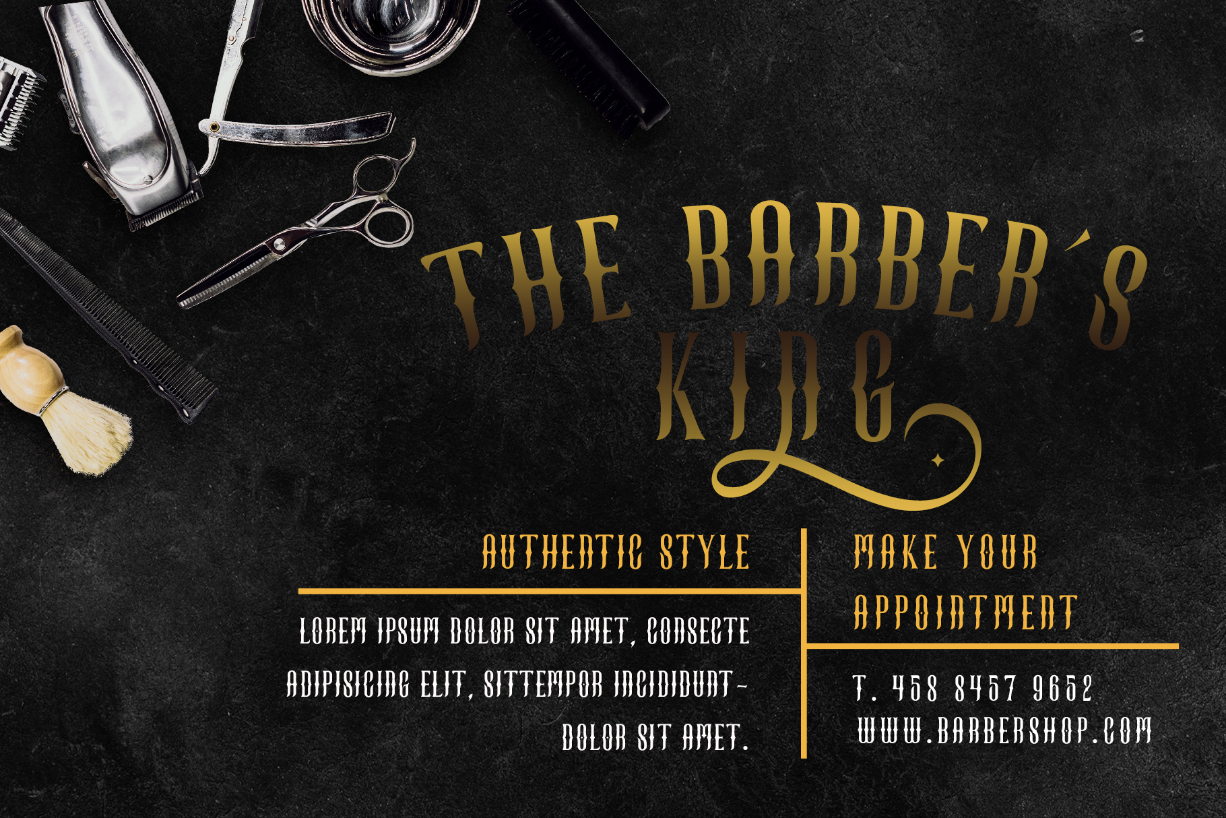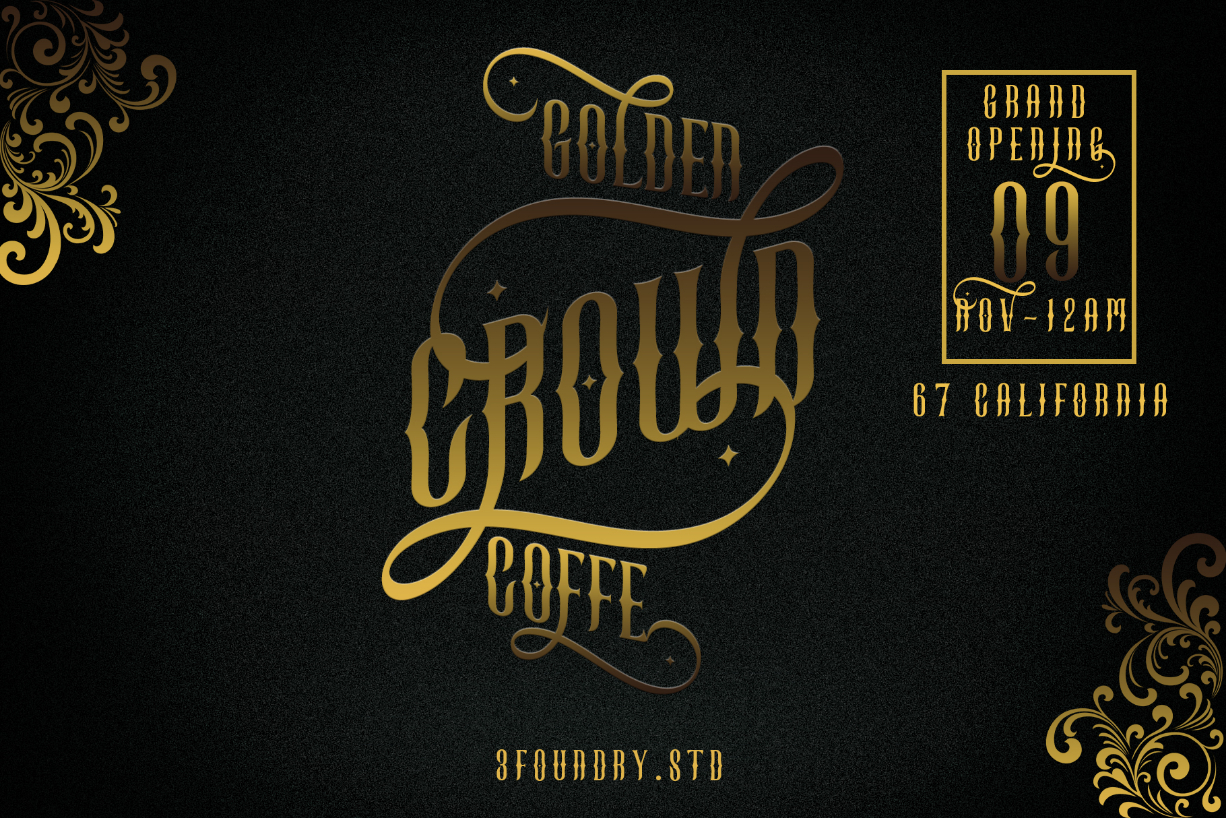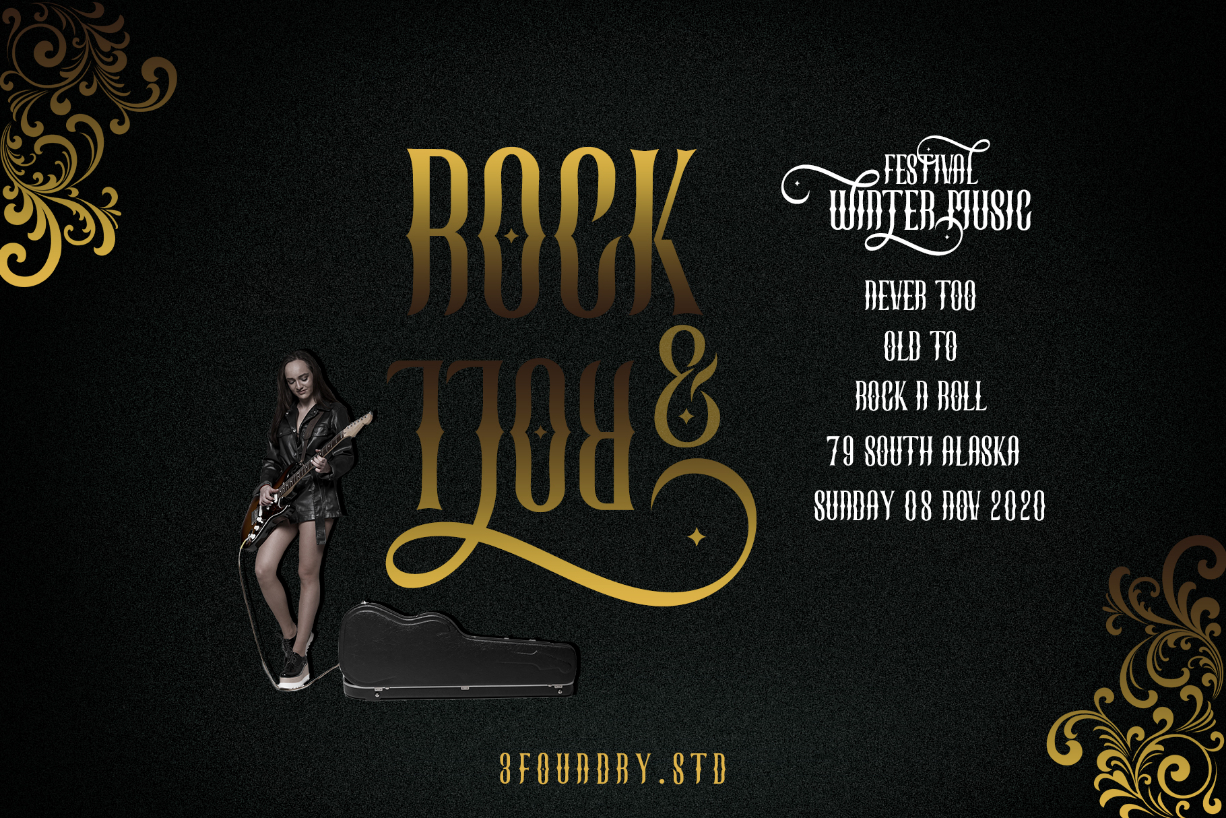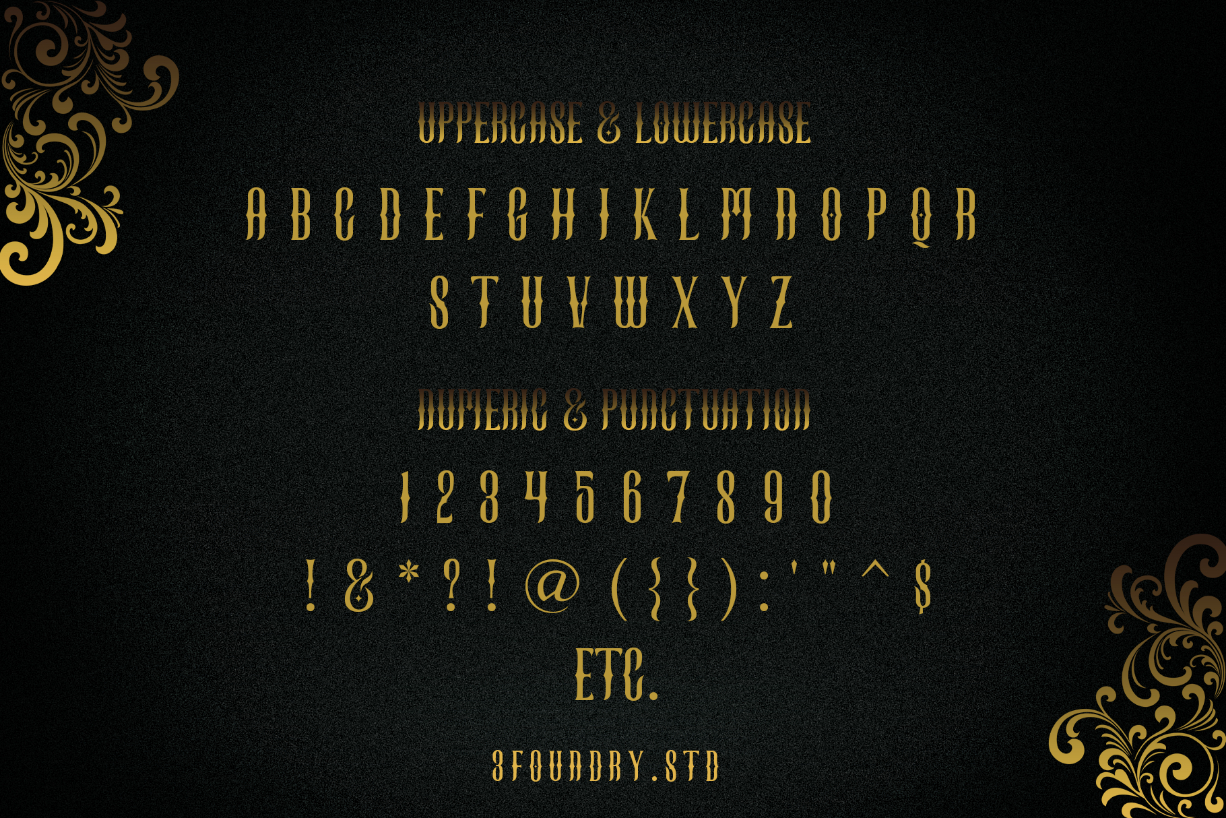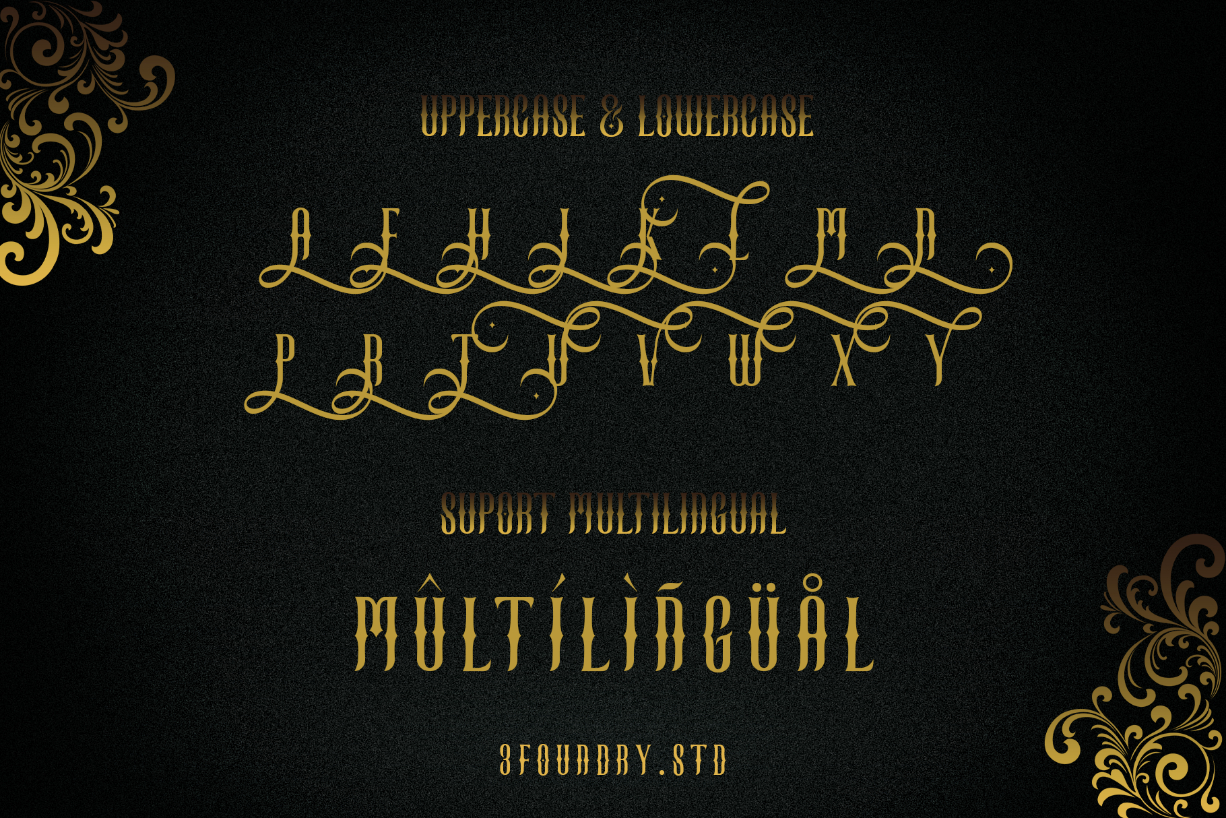
Mystical Glorious Font
About Mystical Glorious Font
Mystical Glorious is an exquisite blackletter font, masterfully designed to become a true favorite. It maintains its classy calligraphic influences while feeling contemporary and fresh. Fall in love with it and bring your projects to the highest levels!